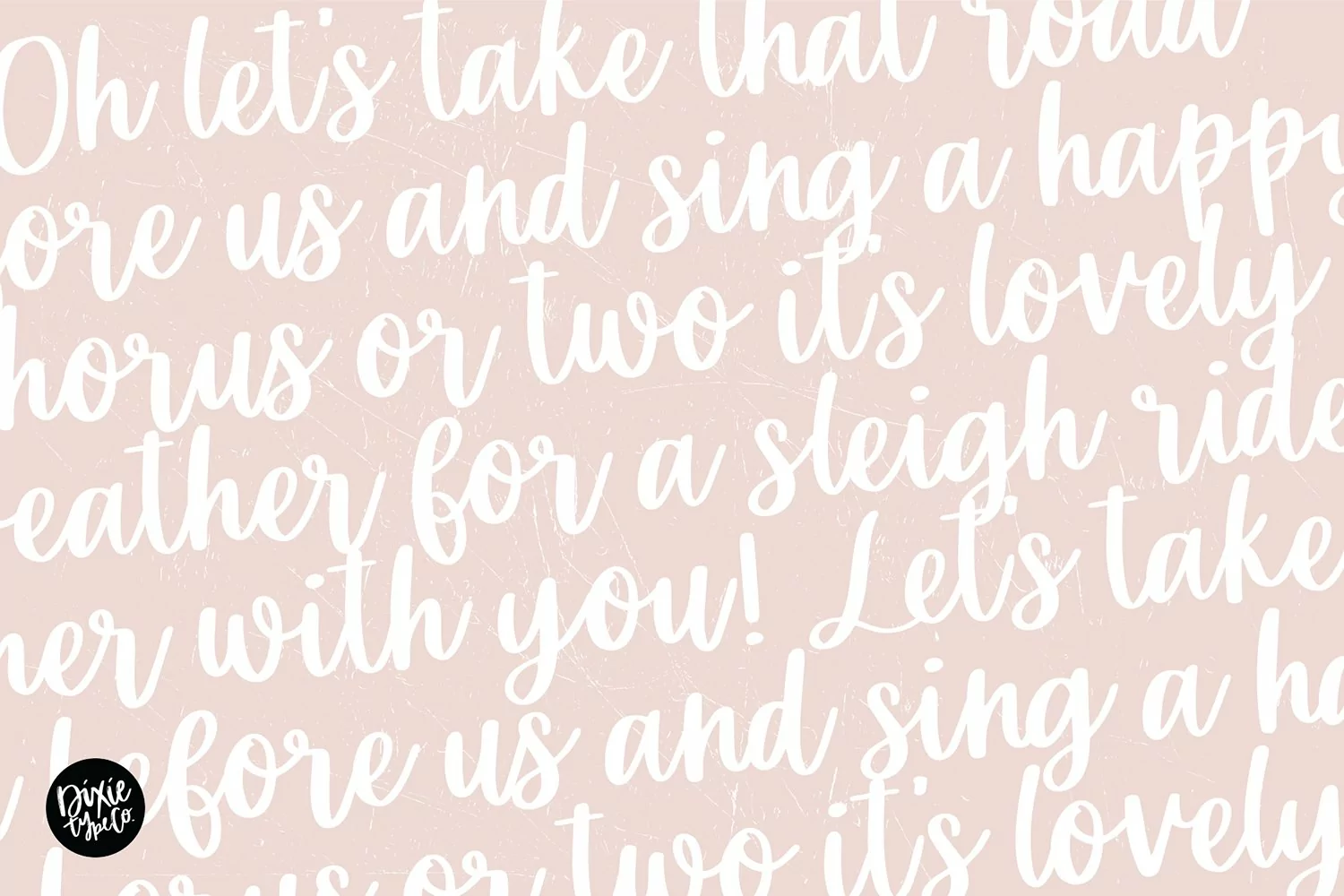
"Snow Bunny" a handwritten script font
{ A typographic font hand-lettered with love by Dixie Type Co. }
Snow Bunny is a beautiful hand-lettered script font. This font is perfect for your craft projects, christmas decor, farmhouse signs, and more.